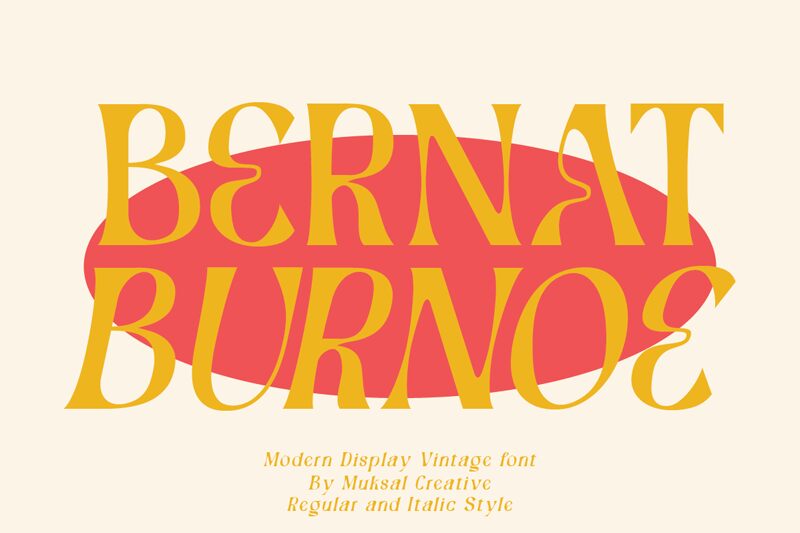
Bernat Burnoe Regular
Bernat Burnoe, a bold and retro-inspired display font, exudes a captivating vintage charm. Designed by Muksal Creative, this striking typeface commands attention with its bold, distinctive letterforms that evoke a bygone era. Bernat Burnoe's robust, expanded proportions lend it a sense of timeless authority, making it an ideal choice for eye-catching headlines, vintage-inspired branding, and dynamic typographic compositions.
Whether adorning the masthead of a classic magazine or accentuating the packaging of a heritage product, this font's unapologetic presence effortlessly bridges the gap between the past and the present. Its versatile nature allows it to seamlessly integrate into a wide range of design contexts, from nostalgic editorial layouts to contemporary advertising campaigns, leaving a lasting impression on viewers.